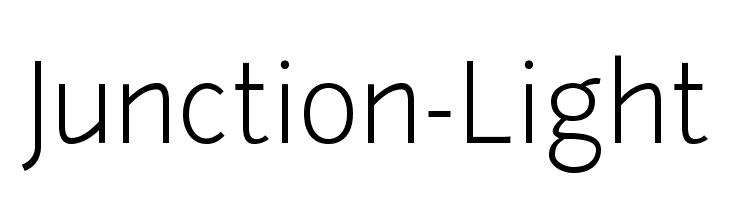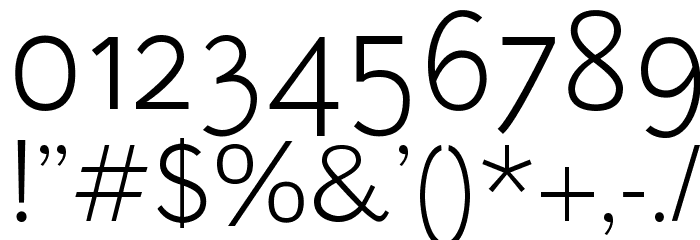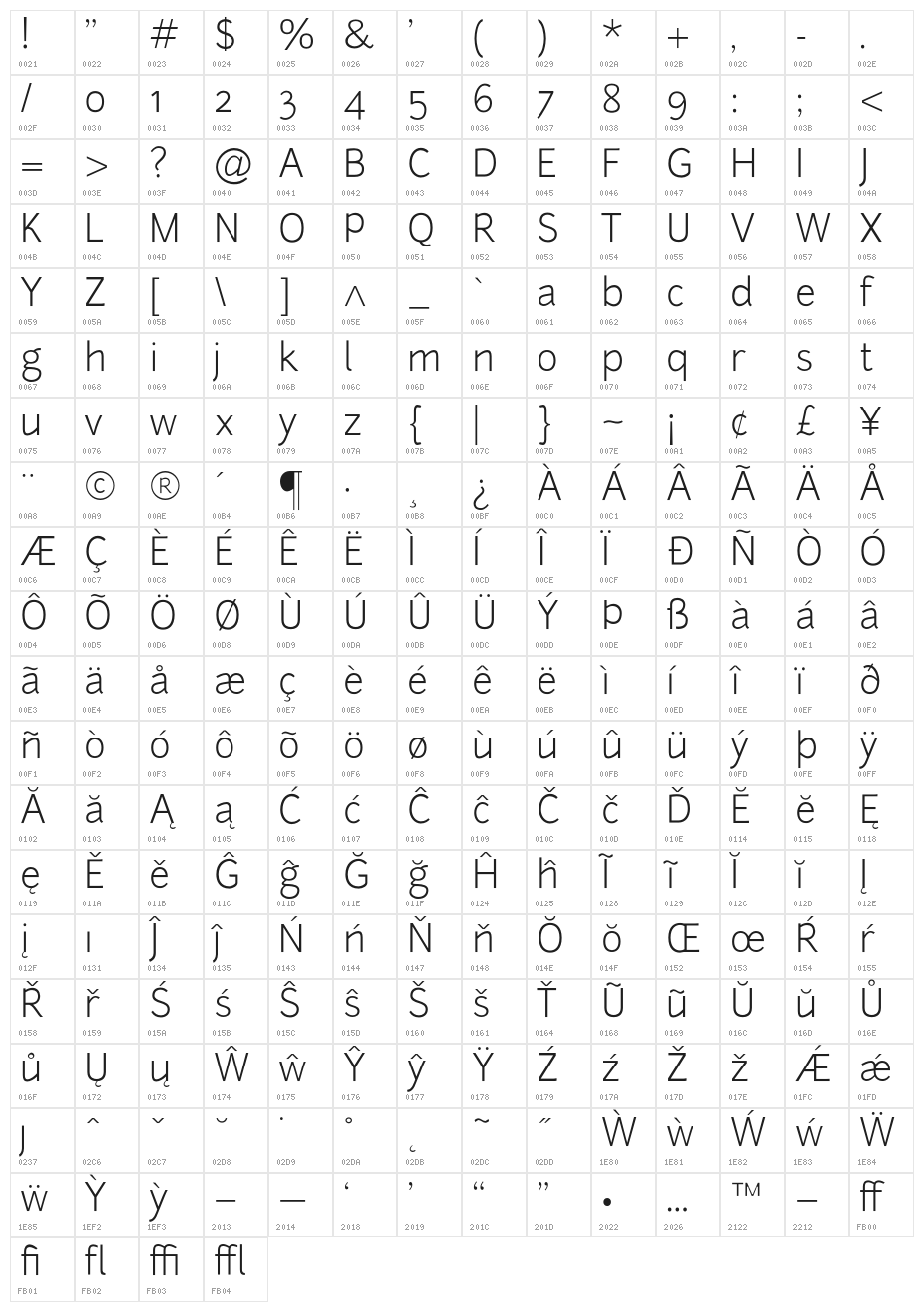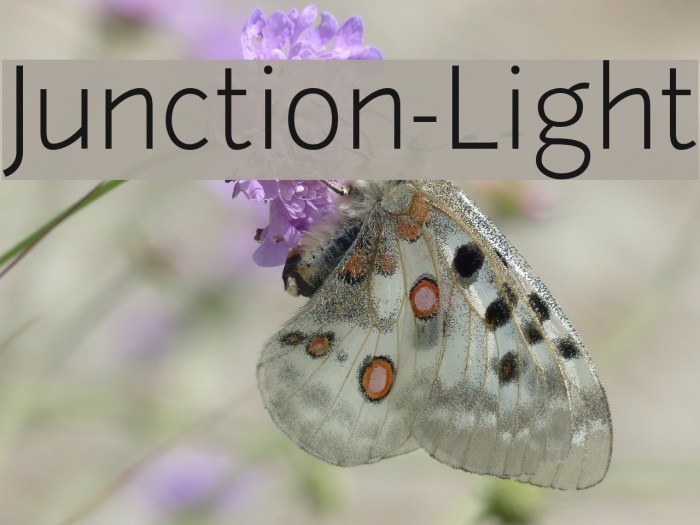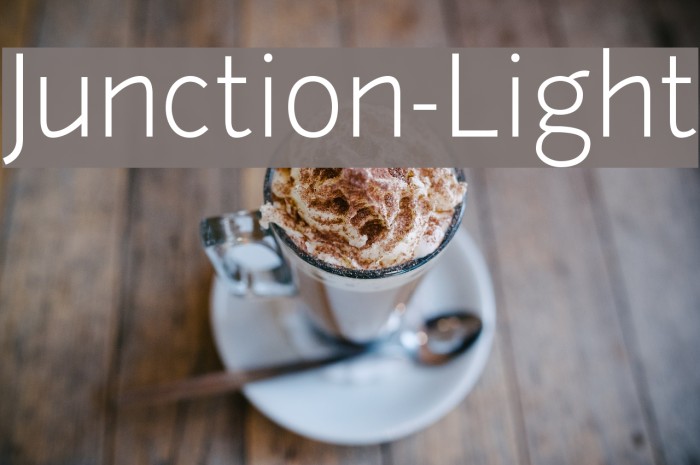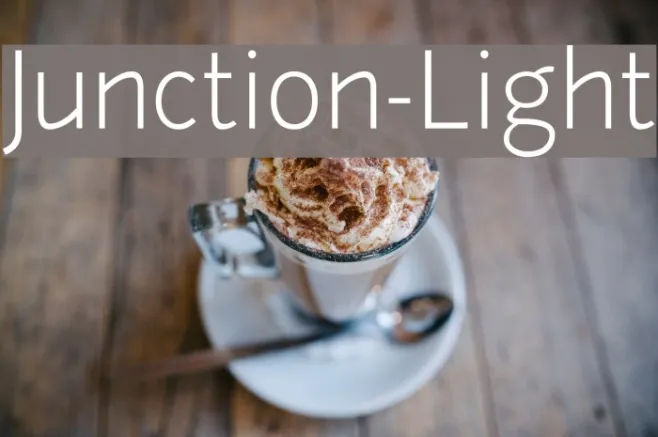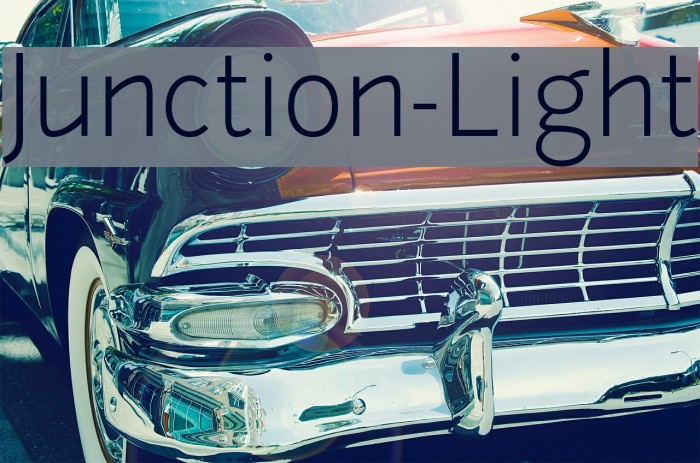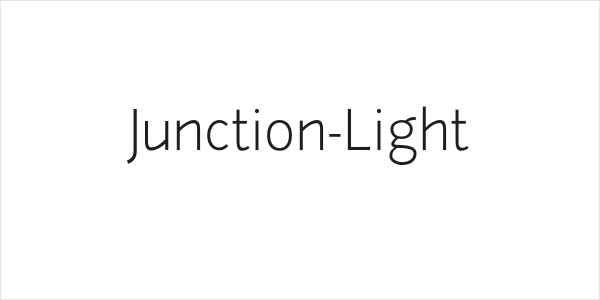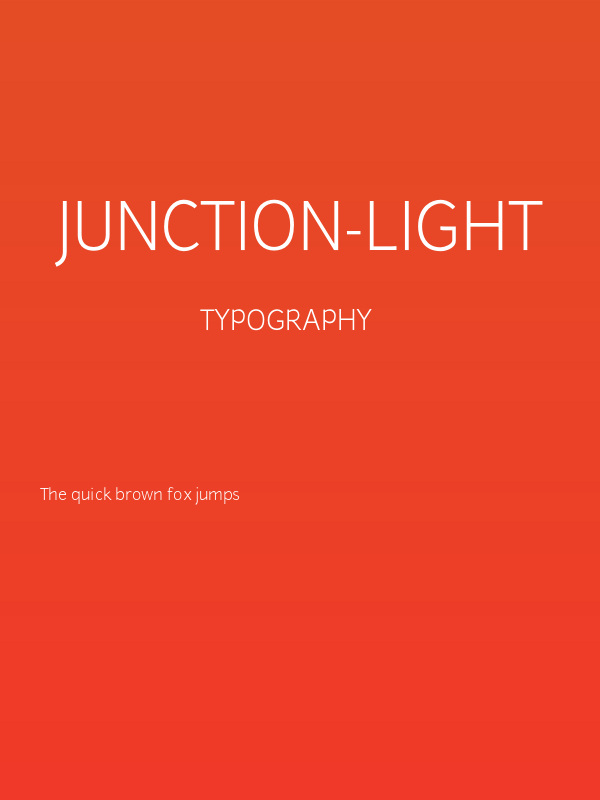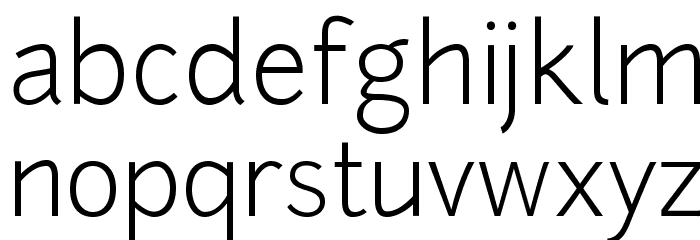
Junction-Light Font
Junction-Light Description
This font features a clean and modern sans-serif style, characterized by its light weight and elegant simplicity. The letterforms are well-proportioned with a consistent stroke width, giving it a balanced and harmonious appearance. The uppercase letters are slightly taller than the lowercase, providing a subtle distinction that enhances readability. The numerals are clear and distinct, making them suitable for both digital and print applications. Special characters are included, maintaining the font's cohesive design. Its versatility makes it suitable for a wide range of uses, from body text to headlines.